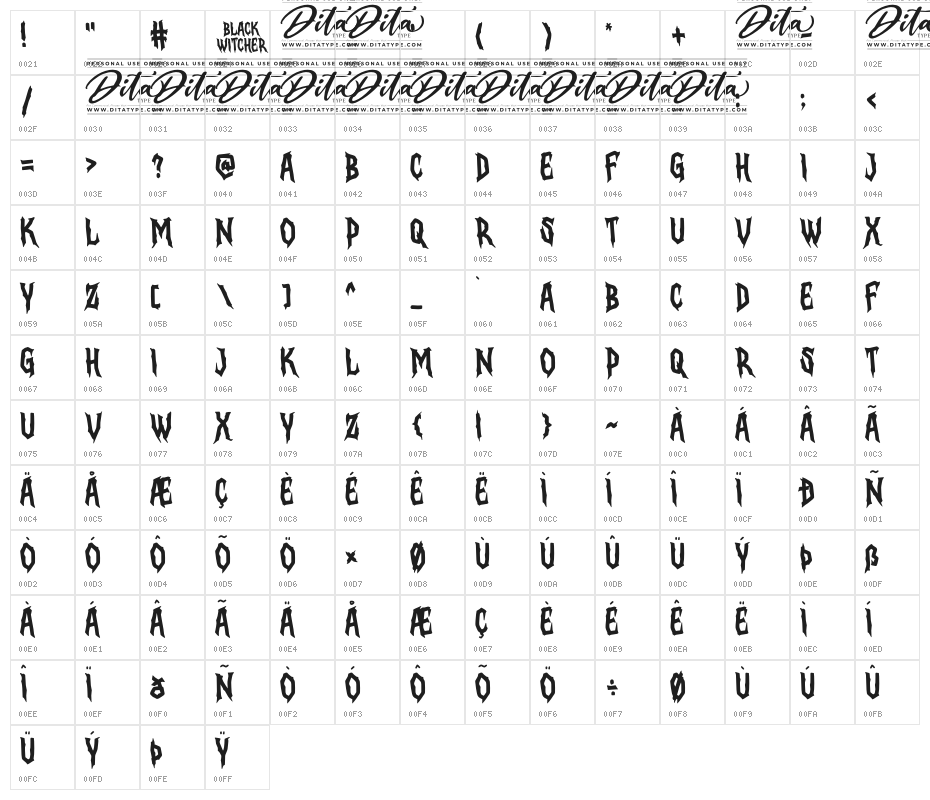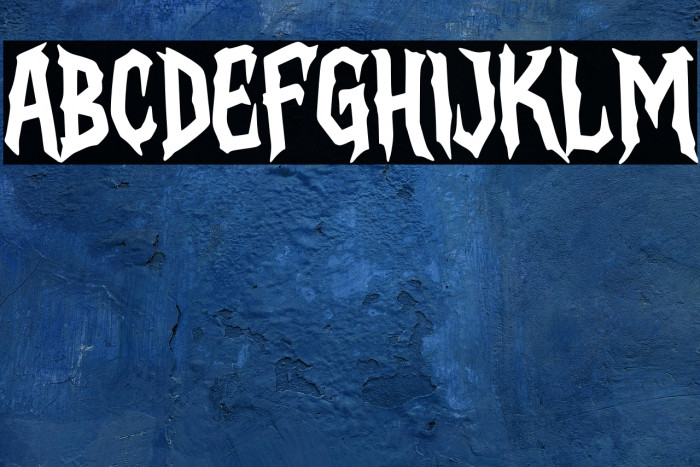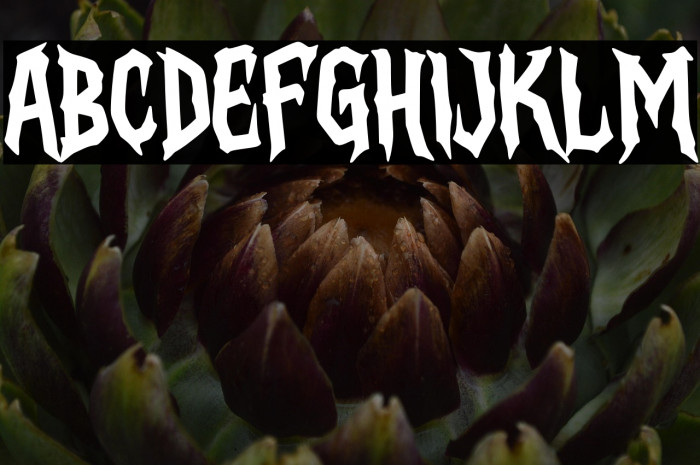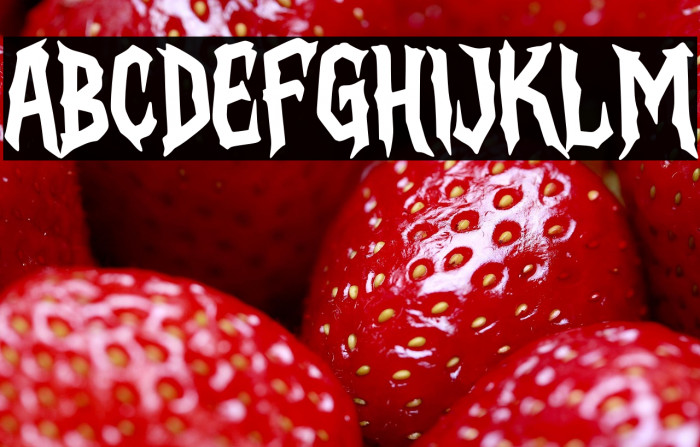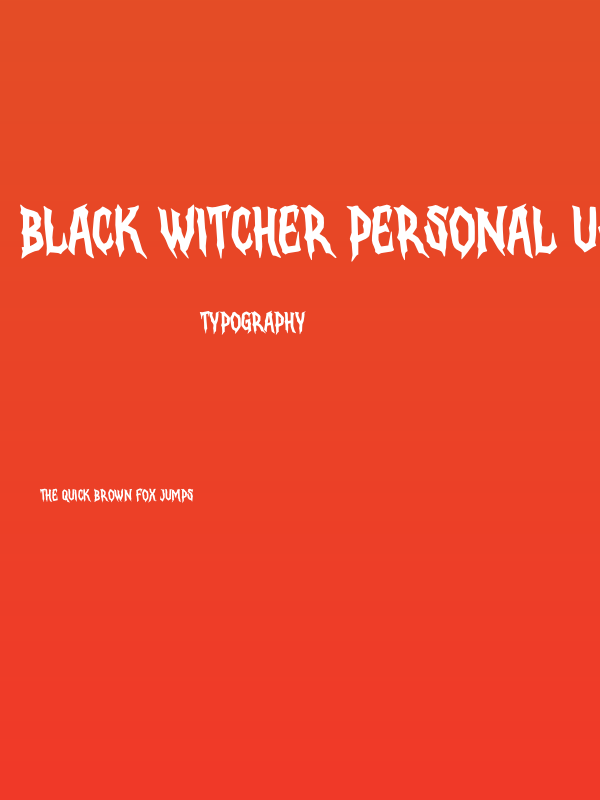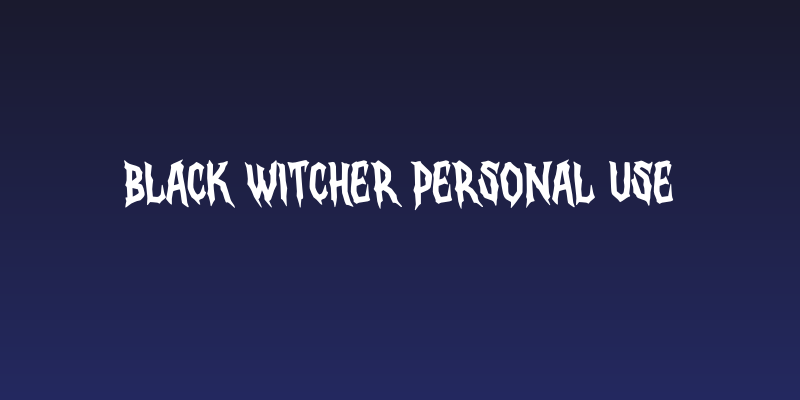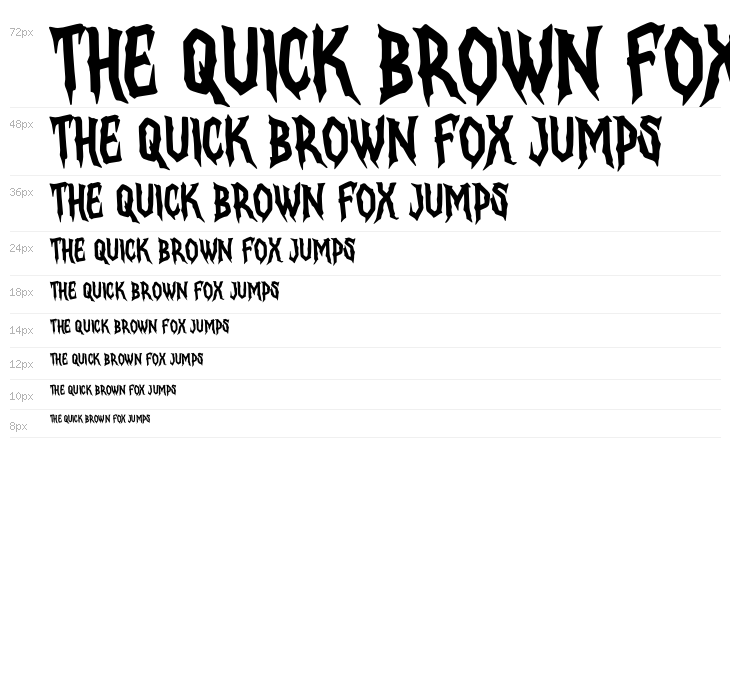
Black Witcher Personal Use Font
Black Witcher Personal Use Description
This font features a bold, jagged design with sharp edges and a gothic aesthetic. The uppercase and lowercase letters maintain a consistent style, characterized by angular lines and pointed serifs that give it a dramatic and intense appearance. The numbers and special characters follow the same design principles, ensuring uniformity across all glyphs. This font's unique style makes it stand out, ideal for projects that require a strong visual impact.
| Overall Style | Gothic, Dramatic, Decorative |
| Use Case | Headlines, Posters, Logos |
| Proposed Projects | Ideal for horror-themed posters, video game titles, Halloween invitations, or any project needing a bold, gothic touch. |